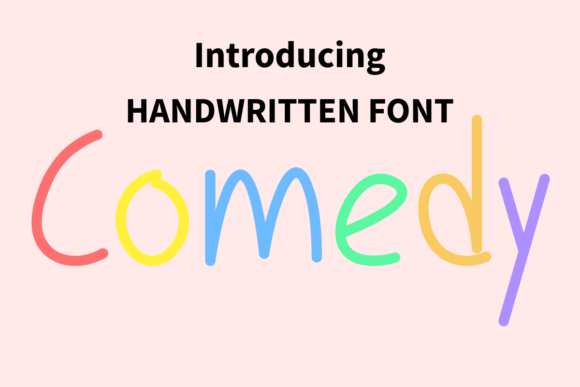
Journey into a world of enchantment with Comedy Font, a sprightly script font that dances across your designs, enchanting them with a childlike whimsy. Its cheerful and amiable nature will bring a smile to your face and add a touch of lightheartedness to your creative projects. Imagine your words pirouette and twirl, captivating your audience with their playful charm.
Crafted with care by Woracado, Comedy Font embodies the essence of childhood dreams and imagination. Its flowing strokes and playful curves evoke a sense of nostalgia, harkening back to days filled with laughter and wonder. Let Comedy Font transport you and your designs to a realm of pure joy and creativity.
Indulge in the versatility of Comedy Font, a font that effortlessly blends elegance with a touch of mischief. Its playful personality shines through in logos, invitations, quotes, advertisements, and magazines, adding a spark of enchantment to any project.
With Comedy Font, you hold the power to transform your designs into captivating works of art. Its enchanting characters will cast a magical spell on your audience, engaging them with their whimsical charm. Embrace the magic of Comedy Font and unlock a world of boundless creativity.